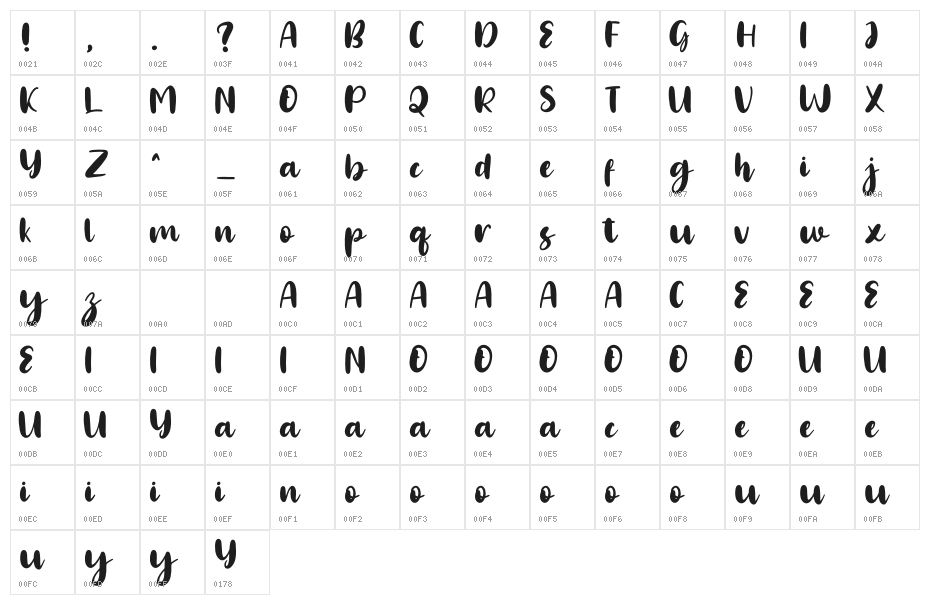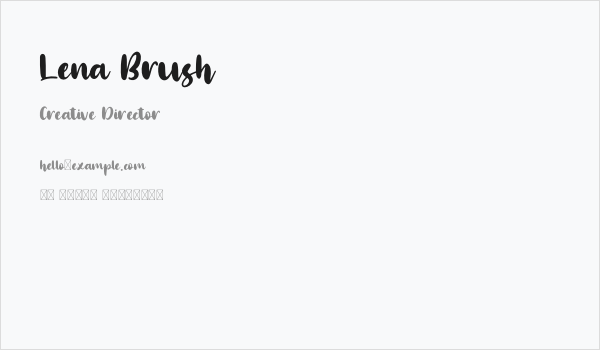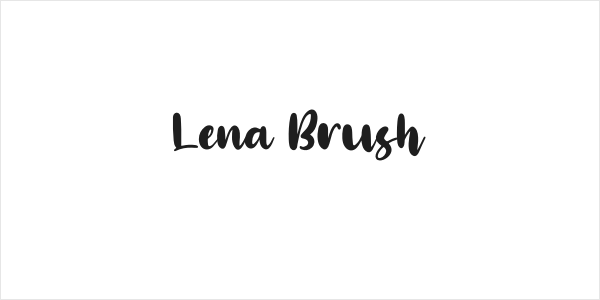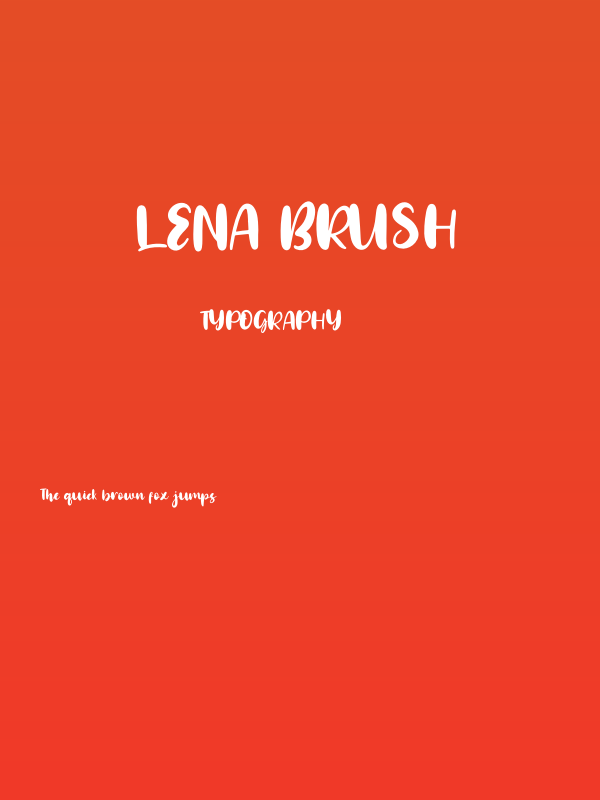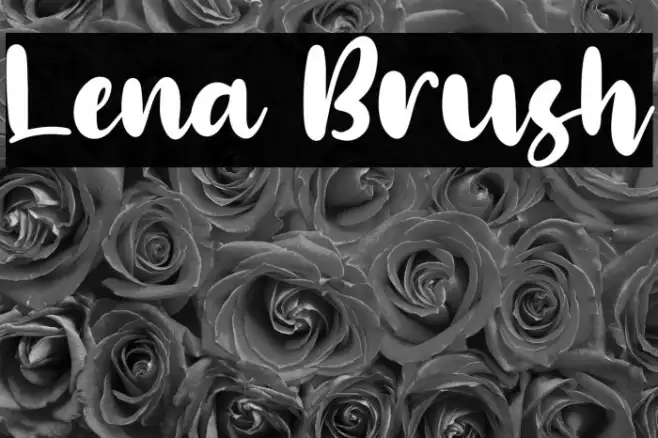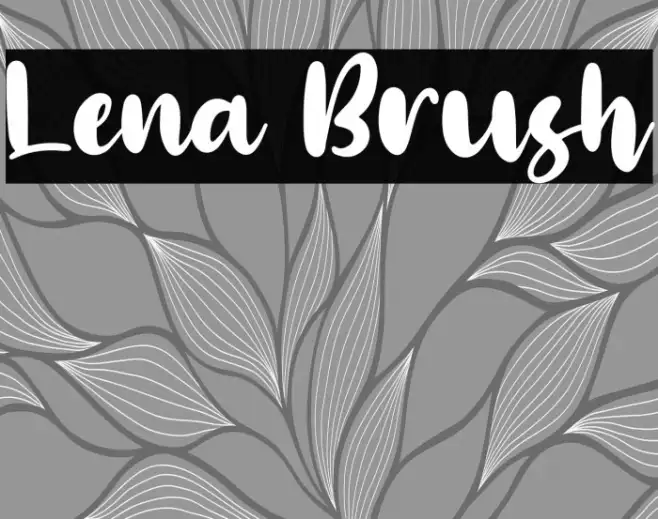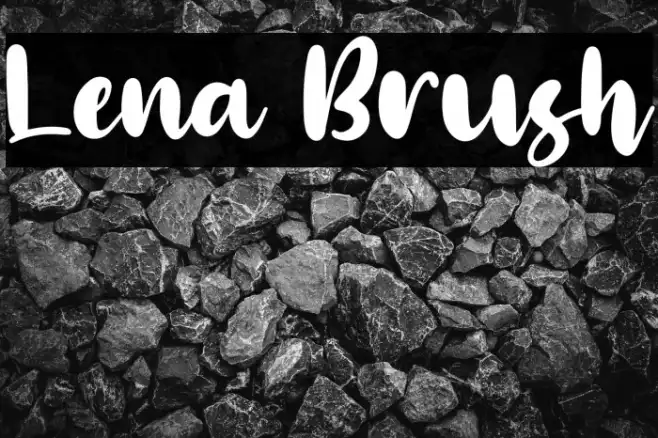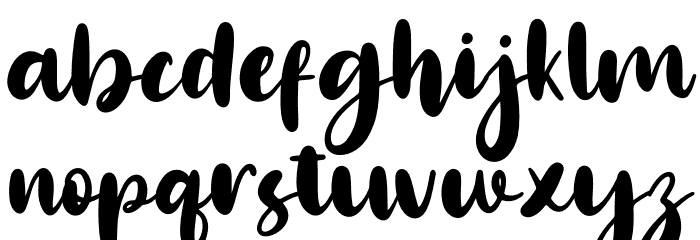
Lena Brush Font
Lena Brush Description
This font features a bold and expressive brush script style, characterized by its fluid and dynamic strokes. The letters are crafted with a sense of movement and energy, giving them a lively and informal appearance. The uppercase letters are bold and slightly condensed, while the lowercase letters maintain a consistent flow with a playful touch. The overall design is modern and artistic, making it suitable for creative projects that require a personal and handcrafted feel. The font's brush-like texture adds depth and character, enhancing its visual appeal.
| Proposed Projects | Ideal for branding, packaging, invitations, and social media graphics. |